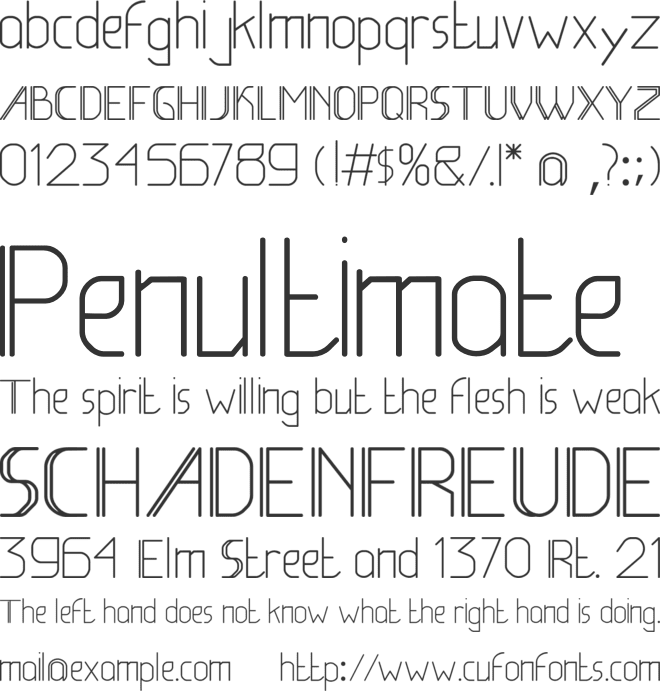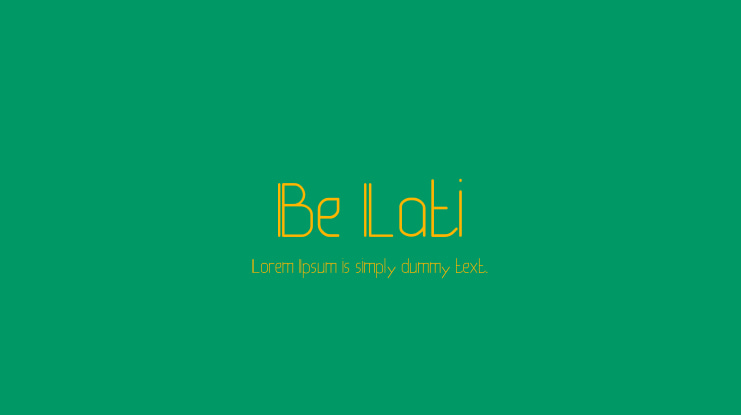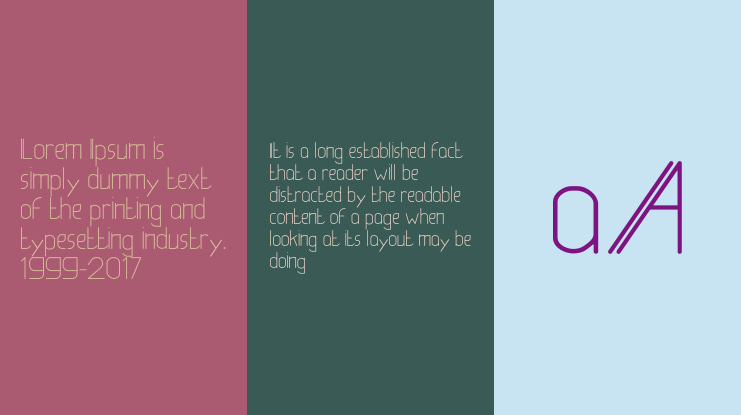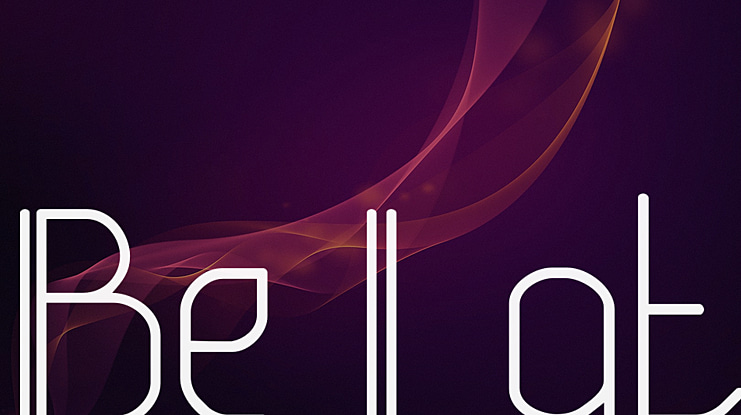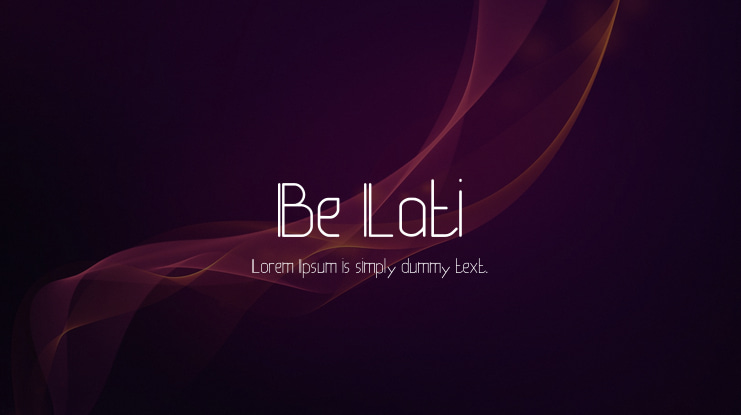
Be Lati Font
Be Lati is a distinct and elegant display font. With its neat and beautiful arrangement of letters, this typeface will look outstanding in both formal and non-formal designs.